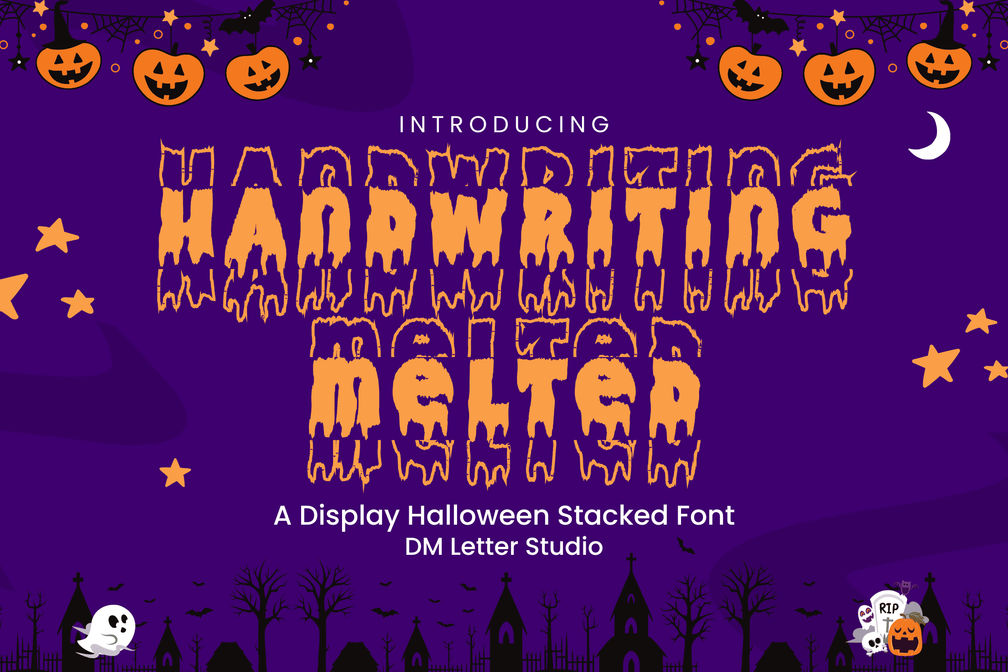
Handwriting Melted Stacked
Handwriting Melted Stacked – Drippy & Spooky Stacked Font
Handwriting Melted Stacked brings a creepy twist to stacked lettering with its oozing, drippy style. Designed for maximum impact, this vertically aligned spooky font is perfect for Halloween posters, eerie invites, trick-or-treat bags, haunted house signs, and more. The stacked layout emphasizes the gooey texture, giving your words a chilling and playful look.
• Stacked Melted Style: Bold, vertically stacked letters with drippy effects for a fun horror vibe.
• Perfect for Halloween Projects: Great for flyers, haunted invites, spooky merchandise, and seasonal crafts.
• Creepy Yet Playful Look: Eye-catching and legible—ideal for both kid-friendly and edgy designs.
• Full Character Set: Includes uppercase, lowercase, numbers, punctuation, and multilingual support.